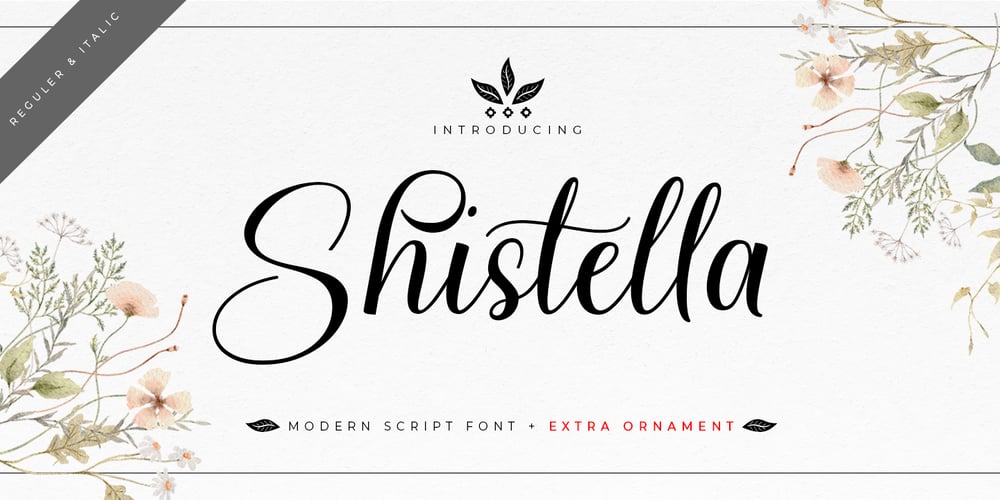
Shistella
Shistella font
Shistella Font Family was designed by Kurniadi Saputra and published by Cooldesignlab. Shistella contains 2 styles and family package options. Shistella is a new elegant font with two variations Regular, Italic. This font has also been embedded with some pretty ornaments that you can access immediately for each lowercase letter. This font is made especially for those of you who need a beautiful touch to design your next project with perfect and stunning results. With a flower-shaped swash, it is perfect for many purposes. Such as titles, signatures, logos, correspondence, wedding invitations, letterheads, nameplates, labels, newsletters, posters, badges, Branding, Greeting Cards, etc. Perfect for invitations, as greeting cards and more!!!Shistella includes alternative glyphs and beautifully rendered fonts including set styles, ligatures, etc. The Open Type feature can be accessed using Smart Open Type programs such as Adobe Illustrator CS, Adobe Indesign & CorelDraw X6-X7 and Microsoft Word. And this font already provides unicode PUA (custom code font). so that all alternative characters can be easily accessed in full by craftsmen or designers.If you don’t have a program that supports OpenType features such as Adobe Illustrator and CorelDraw X Version, you can access all the alternative glyphs using Font Book (Mac) or Character Map (Windows).Thanks and love designing 🙂